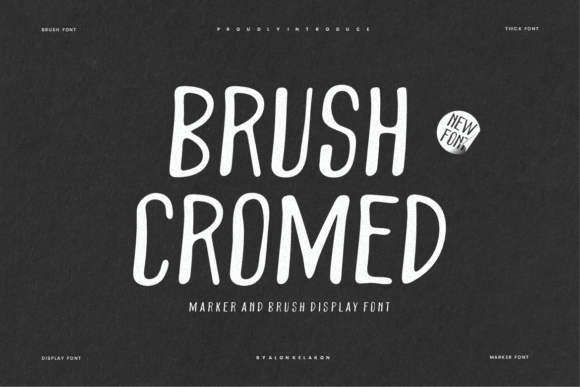
Discover the Magic of Brush Cromed Font
Have you ever found yourself scribbling down an idea in a notebook, only to realize that the handwritten text has become the most memorable part of your inspiration? For designers, those moments are a goldmine of creativity. The imperfections and uniqueness of handwritten text can often spark a new direction for a project.
That’s where the Brush Cromed Font comes in – a sweet and friendly handwritten font designed to bring a touch of natural elegance to your designs. Its versatility makes it the perfect companion for any creative project, from greeting cards to advertising campaigns. With the Brush Cromed Font, the possibilities are endless, and the only limit is your imagination.
Brush Cromed Font Key Features
- Font Family: Brush Cromed Font is a unique, hand-drawn sans-serif font.
- Unique Characteristics: Features a distressed, hand-painted look with subtle brush strokes, giving it a unique and eye-catching aesthetic.
Designer Review: Brush Cromed Font
Overall, I think Brush Cromed Font is a great addition to any designer’s toolkit. Here’s what I like about it:
- ✨ Unique aesthetic: The brush-stroke design gives this font a distinct, handcrafted feel that sets it apart from more traditional fonts.
- ✨ Versatility: Brush Cromed Font comes in a range of weights and styles, making it suitable for a variety of projects, from branding to publishing.
- ✨ Legibility: Despite its unique design, the font is still easy to read, even at smaller sizes.
- ⚠️ Limited language support: Brush Cromed Font may not be suitable for projects that require a wide range of language support.
- ⚠️ Kerning issues: I noticed some kerning issues with certain letter combinations, which may require manual adjustment.
Overall, I’m impressed with Brush Cromed Font. Its unique design and versatility make it a great choice for designers looking to add some personality to their projects. While it may not be perfect, its strengths outweigh its limitations, making it a solid addition to any font collection.
Tips for Getting the Most Out of Brush Cromed Font
Use Brush Cromed Font for headings and titles to add a touch of elegance and sophistication to your design.
Combine Brush Cromed Font with other fonts to create a unique and eye-catching typography style.
Experiment with different font sizes and styles to achieve the desired visual impact.
Alternatives to Brush Cromed Font for Designers
Great Vibes is a beautiful, handwritten font perfect for creating a whimsical and elegant look. It’s ideal for use in invitations, wedding designs, and other creative projects where a touch of personality is needed.
Compared to Brush Cromed Font, Great Vibes has a more organic feel and is better suited for projects that require a more artistic and free-spirited approach. While Brush Cromed Font has a more polished and refined look, Great Vibes is more playful and expressive.
Pacifico is a modern, cursive font that exudes a sense of relaxation and sophistication. It’s perfect for use in branding, packaging, and advertising projects where a clean and elegant look is required.
Pacifico is more refined and sophisticated than Brush Cromed Font, making it a better choice for projects that require a more professional and polished look. While Brush Cromed Font has a more industrial feel, Pacifico is more refined and elegant.